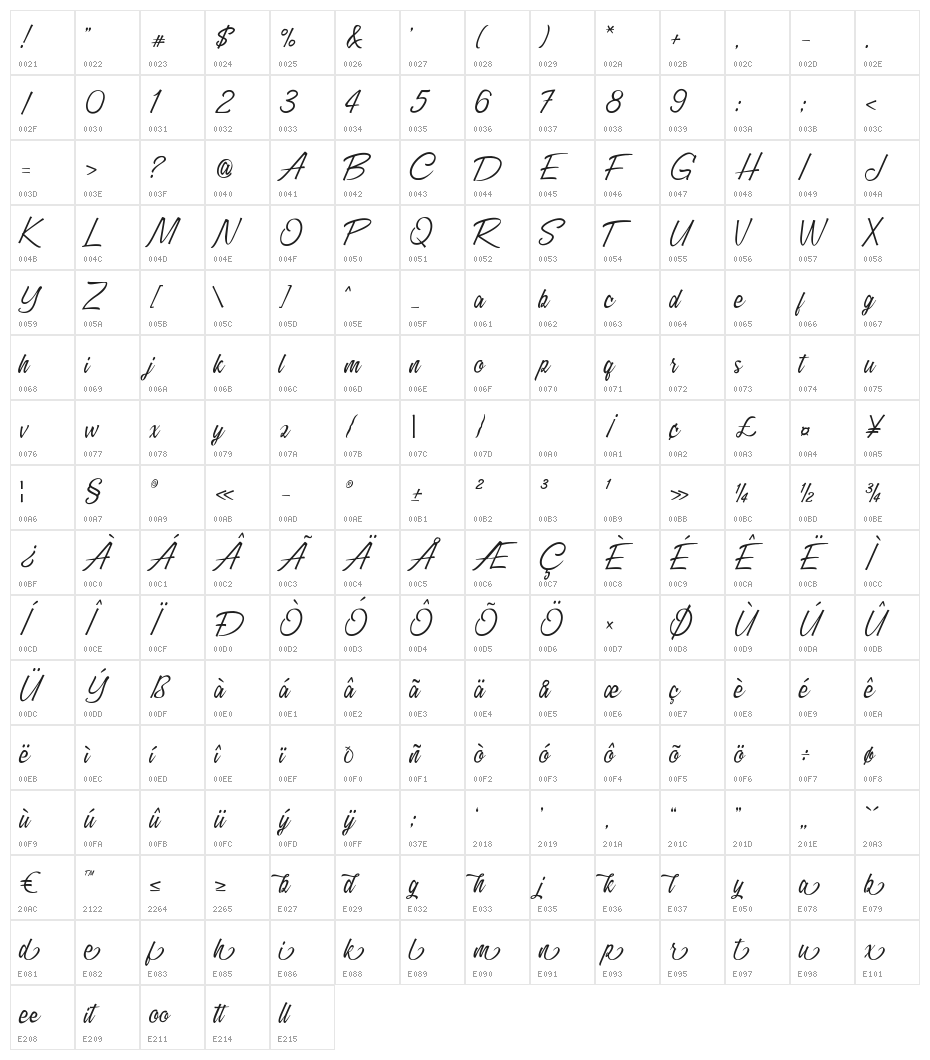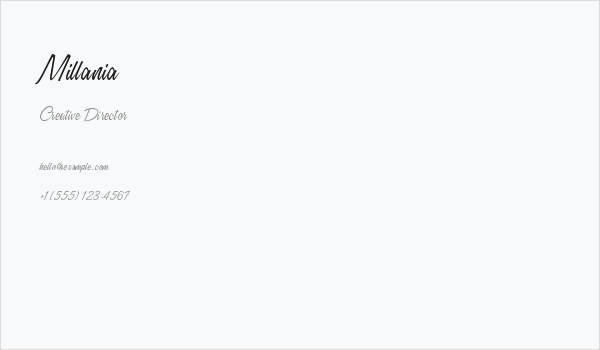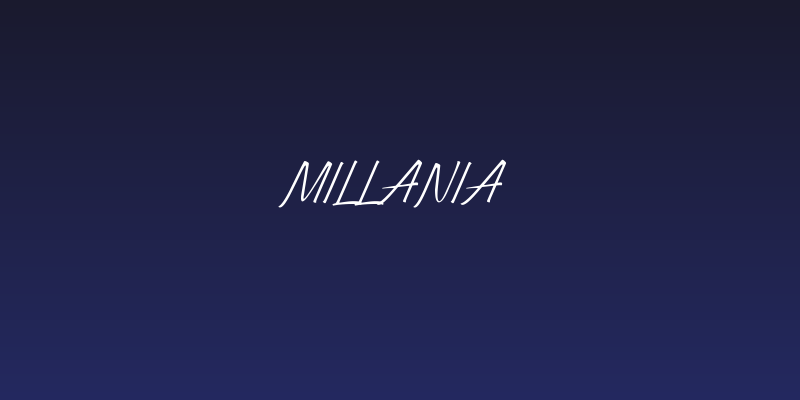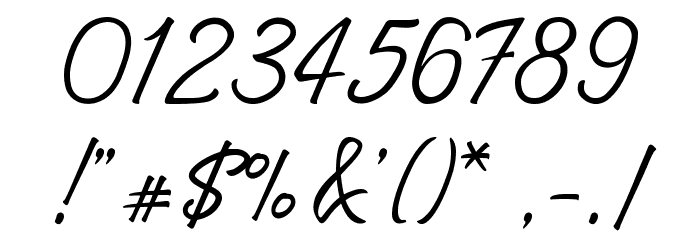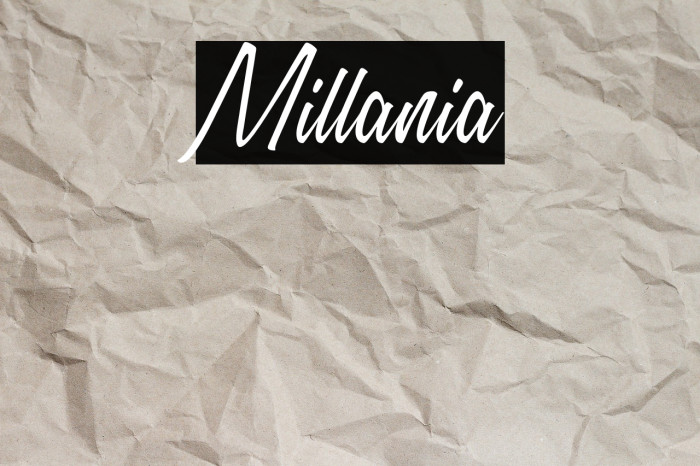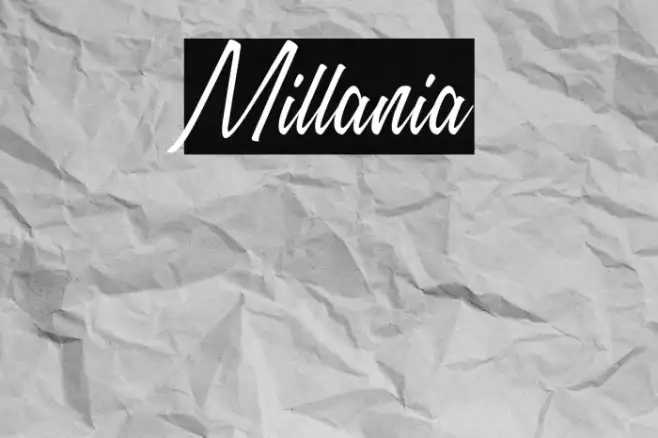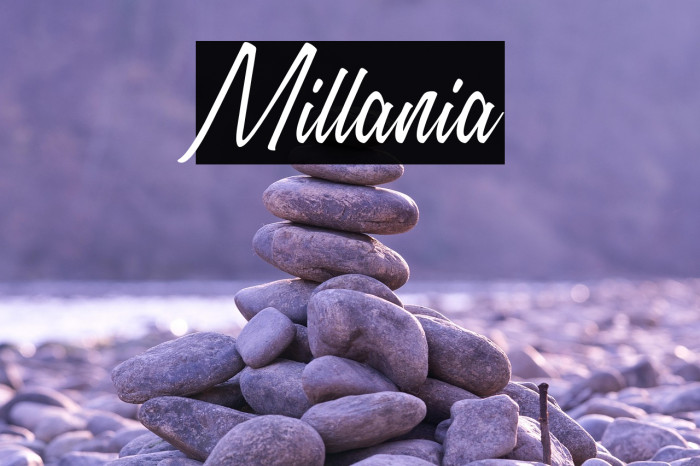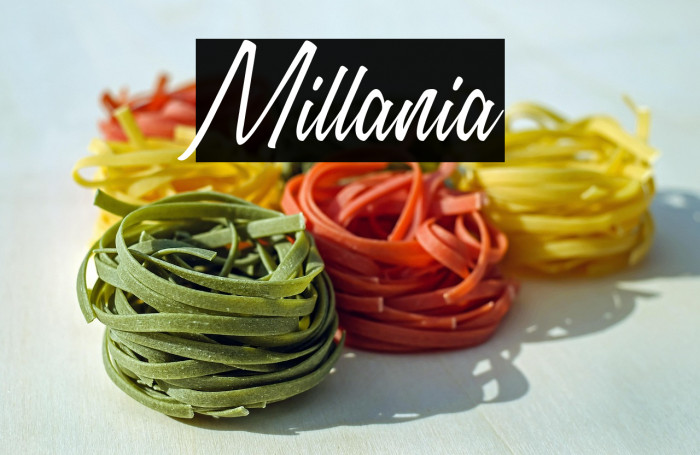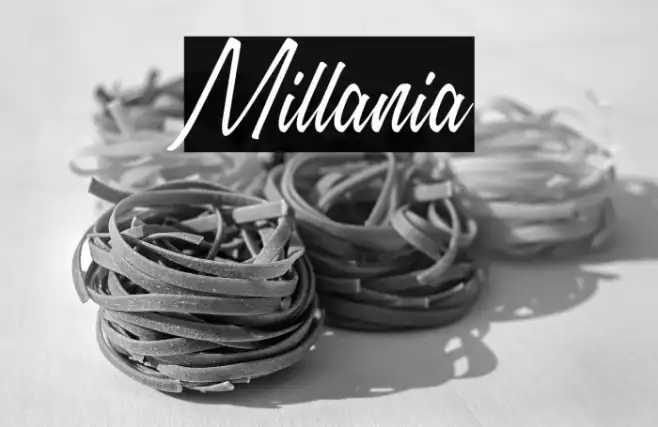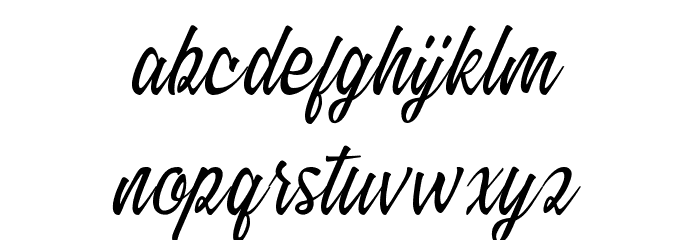
Millania Font
Millania Description
This elegant script font features a smooth, flowing style that mimics the fluidity of cursive handwriting. The uppercase letters are tall and slightly slanted, with graceful curves and loops that add a touch of sophistication. The lowercase letters maintain a consistent slant and are connected, enhancing the handwritten feel. The numerals are clear and easy to read, with a slight slant that matches the overall style. Special characters are thoughtfully designed to complement the letters, maintaining the font's cohesive look. This font exudes a sense of elegance and formality, making it ideal for projects that require a personal touch.
| Proposed Projects | Ideal for wedding invitations, personal branding, elegant stationery, and formal event programs. |